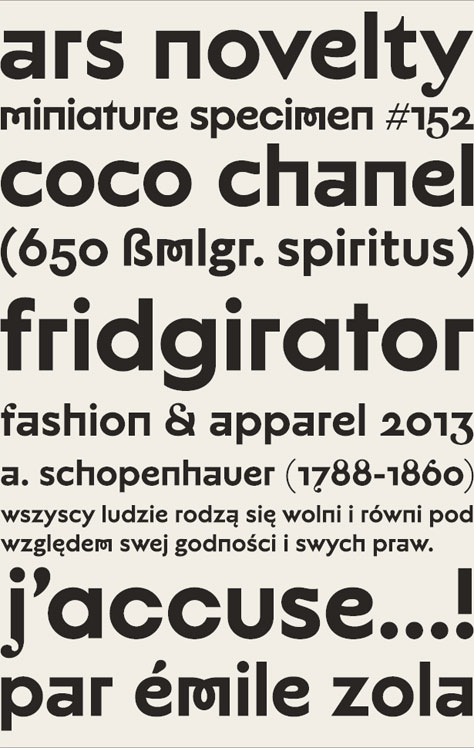
Free Typeface Merges the Baroque with the Geometric
Merging the Baroque with the Geometric, the high contrast Serif with the monoline Sans, the Fun with the Functional–ARS Novelty is a sign of things to come. This is an hybrid sample of several projects currently in production, demonstrating that they both can coexist simultaneously and even compliment each other, while maintaining a contemporary edge.
ARS Novelty contains only lowercase characters–it makes use of the Uppercase for the Sans characters, and the Lowercase for the hybrid Sans & Serif characters. It also includes two sets of punctuation as well as tabular and proportional Oldstyle numerals were made to fit the two variations.
Armed with a good set of OpenType stylistic features and ligatures, ARS Novelty fits right at home when used for headlines and short text verses to gracefully draw attention to your message. The more adventures among you may be pleasantly surprised to find out how well it works for even longer paragraphs of text!